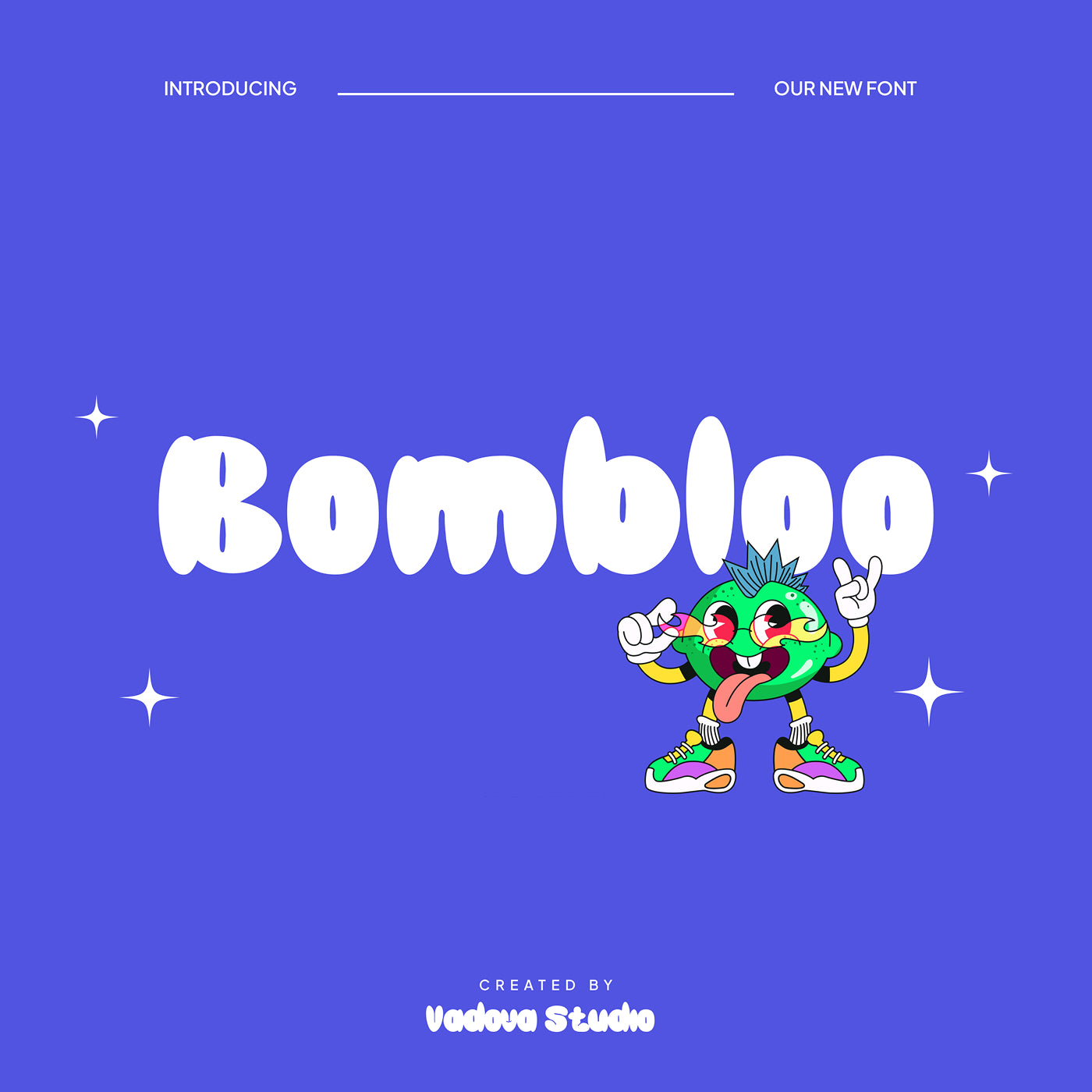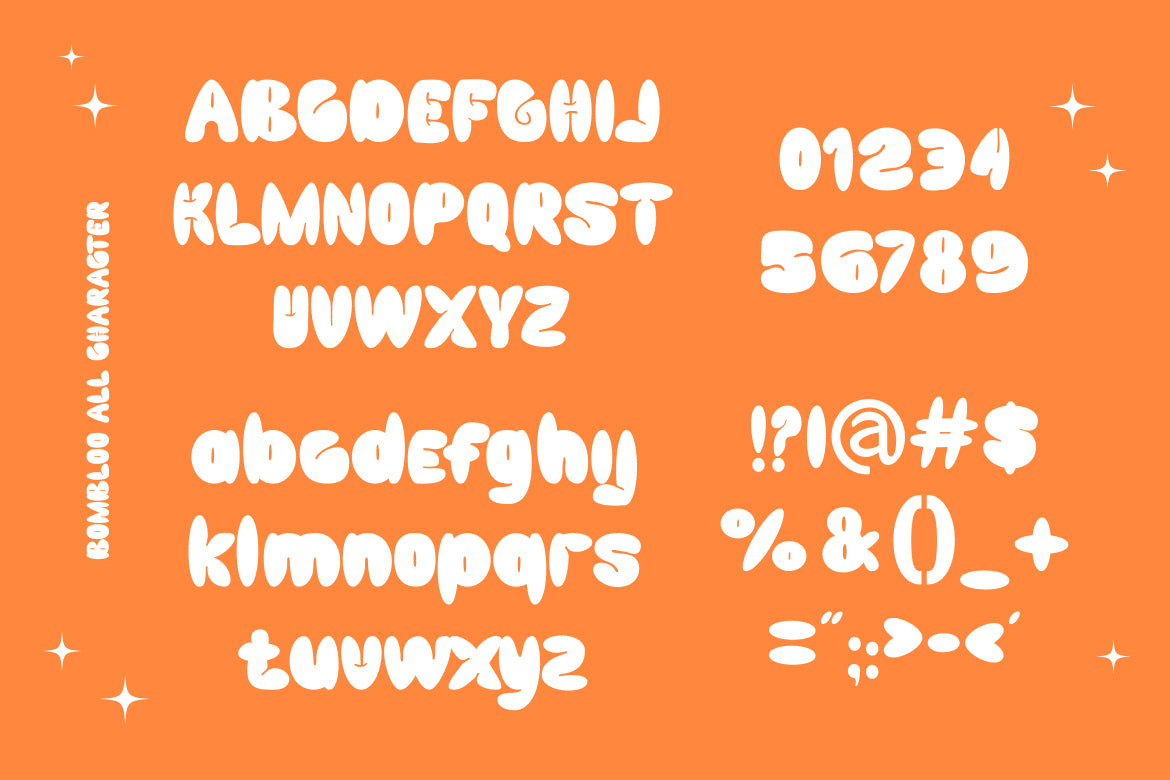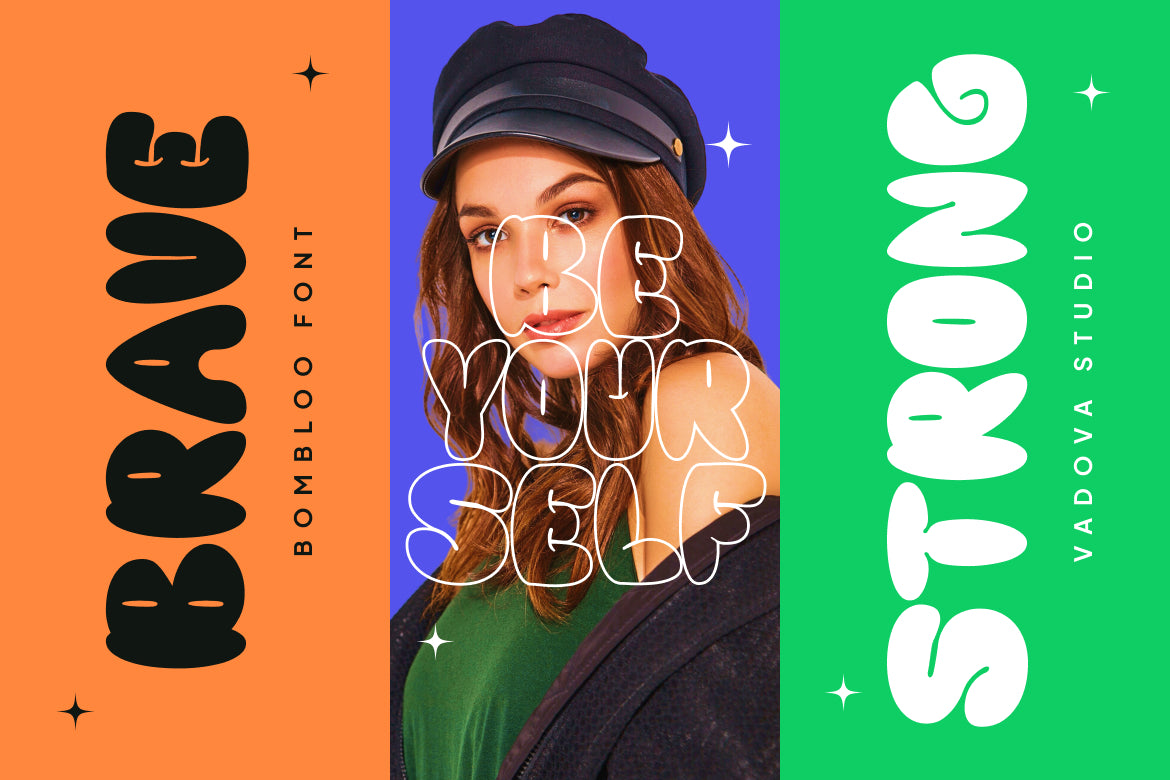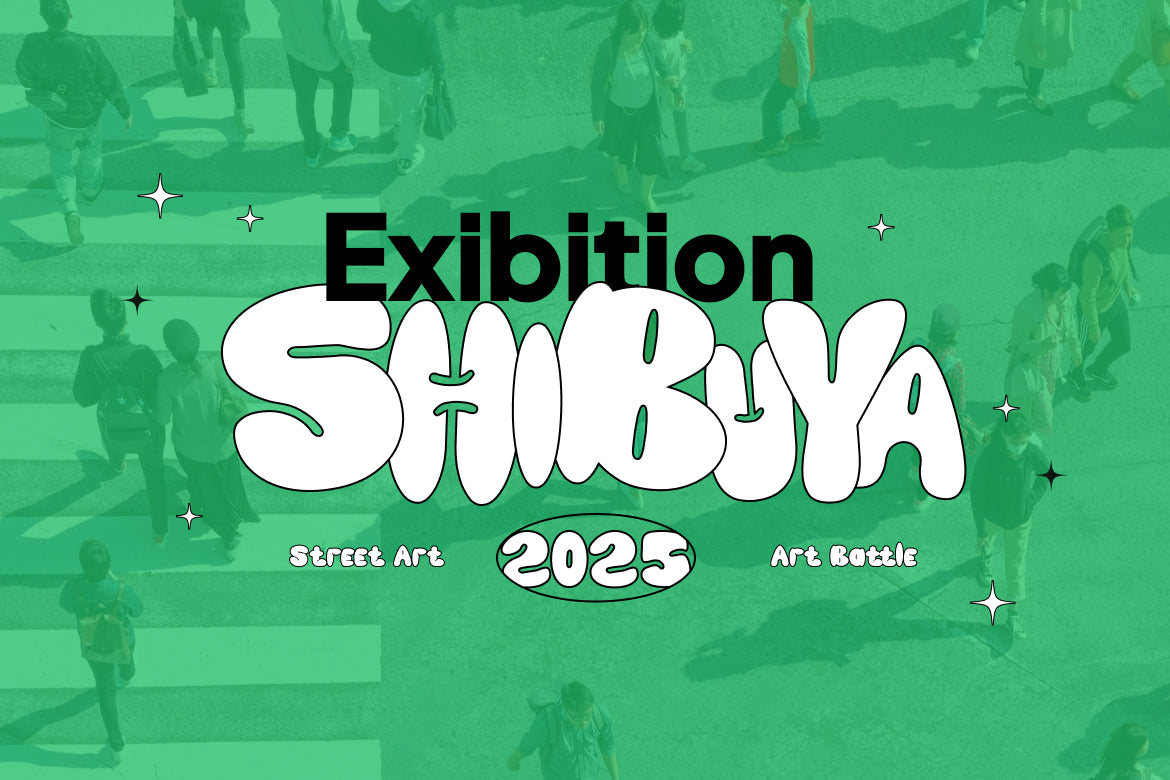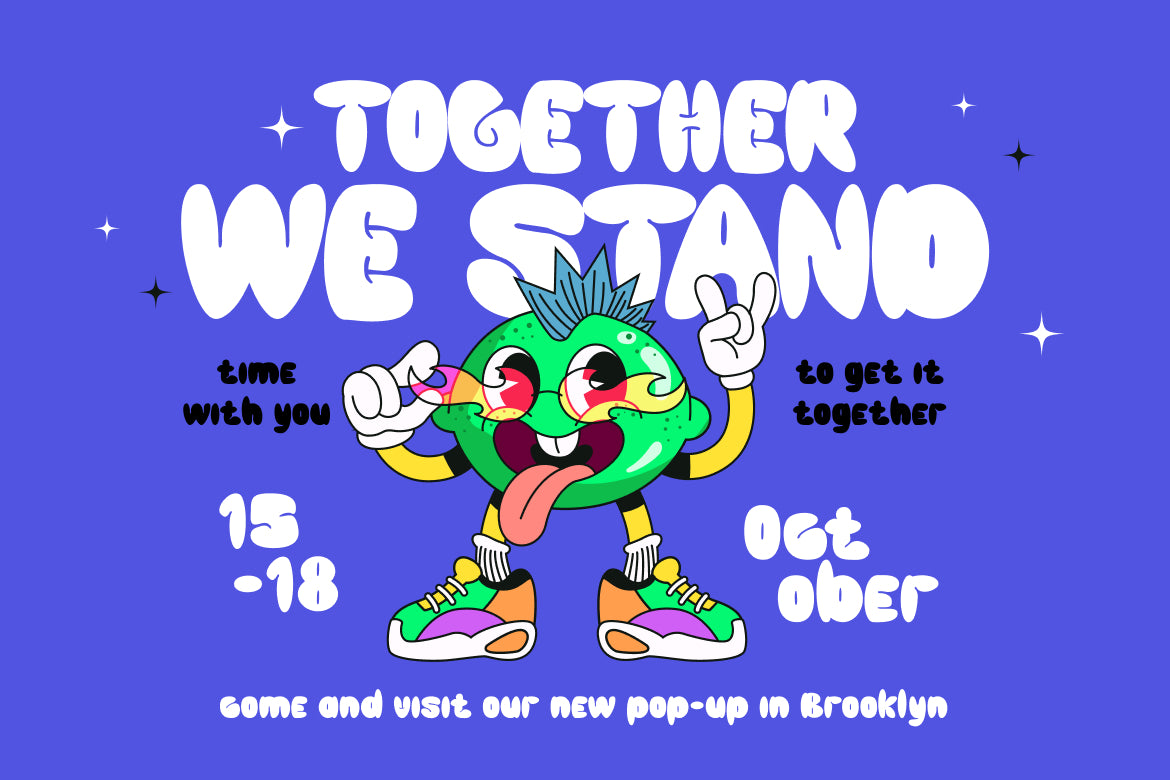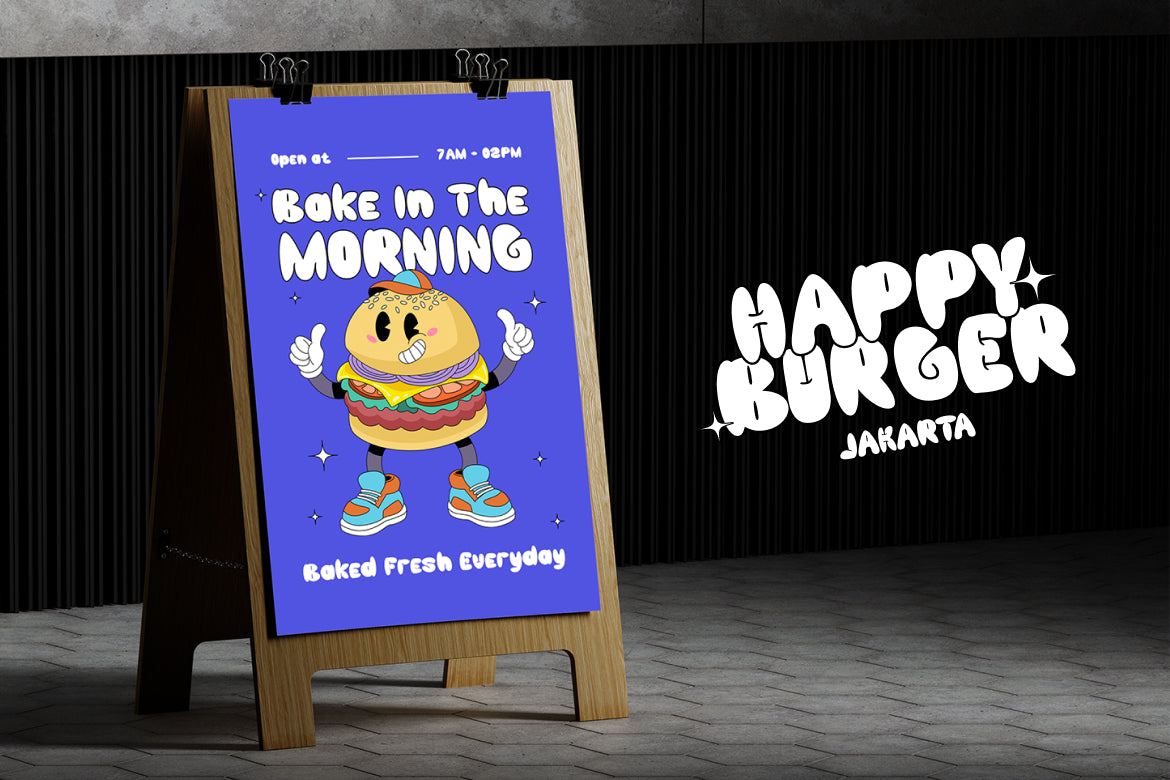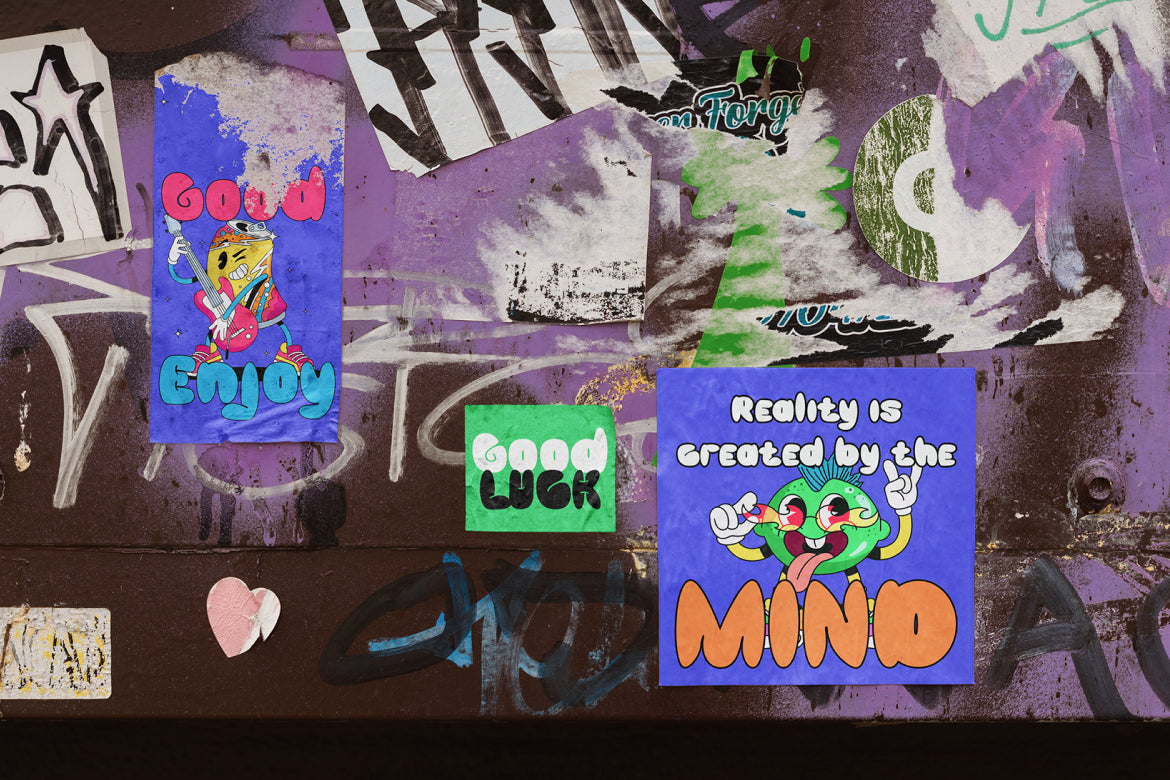
Bombloo Creative Font
Bombloo is a bold, bubbly display font built around soft, rounded letterforms and an energetic cartoon-inspired personality. Its chunky shapes, playful proportions, and smooth curves create a friendly visual impact that immediately draws attention. The exaggerated forms make it especially effective for large headlines, where the character of the typeface can become the main visual element. Designed for expressive display typography, Bombloo works well for kids and youth-oriented branding, playful logos, posters, stickers, merchandise, packaging, social media graphics, and fun campaign artwork. It pairs naturally with colorful illustrations and character graphics, making it a strong choice for designs that need a cheerful, approachable, and lively personality.
Bombloo Creative Font is a bold display typeface with rounded, chunky letterforms, including uppercase and lowercase characters, numerals, and punctuation. It is available in TTF, OTF, and WOFF formats.